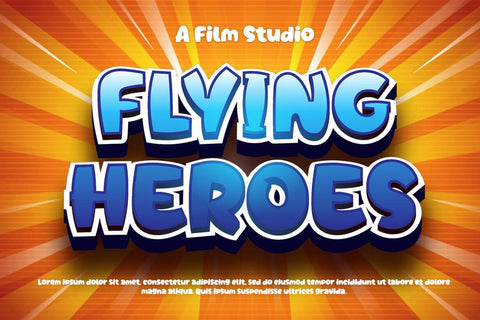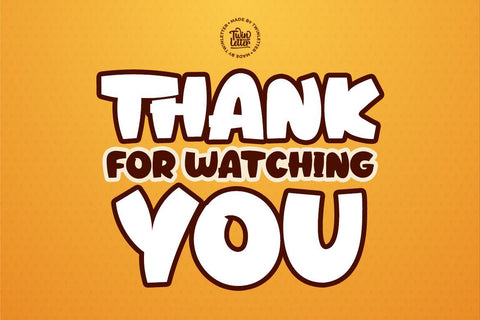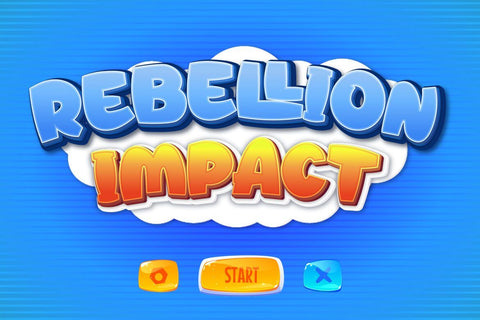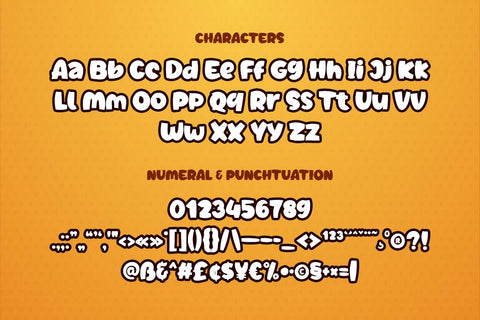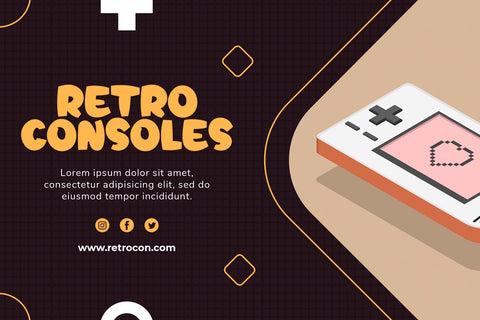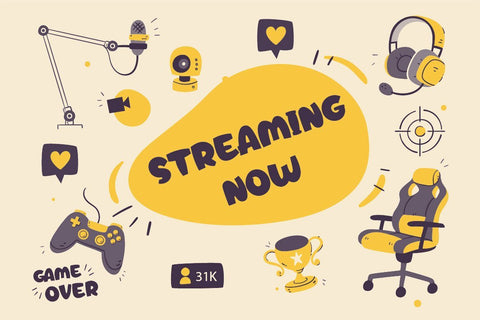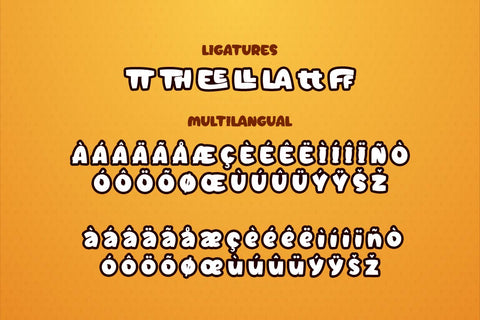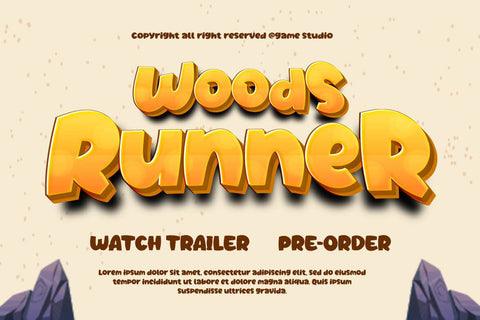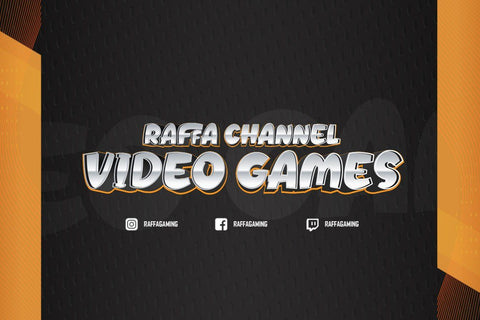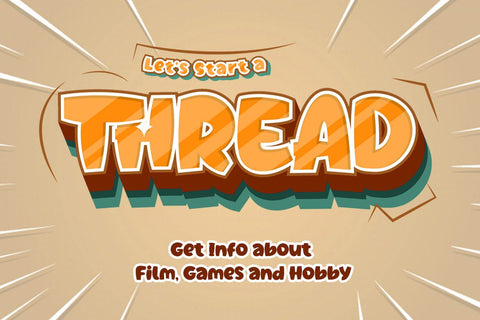
Jeenull Playful Display Font
Jeenull is a distinctively appealing typeface with a thick character that gives a distinct impression ideal for a variety of serious and casual applications.
This font is perfect for games, sporting events, branding, banners, posters, movie titles, book titles, quotes, logotypes, and more.